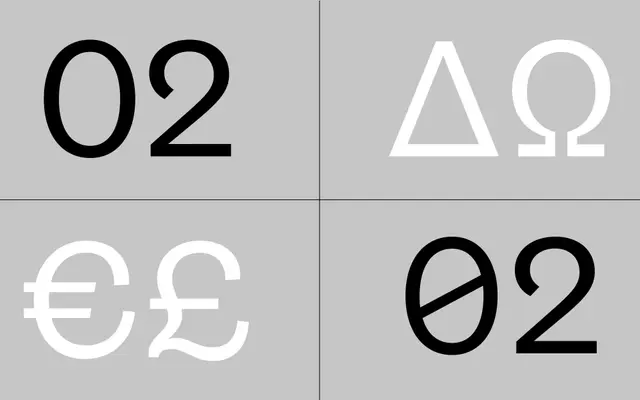
Oceanic Gothic specimen from Interval Type
A grotesque sans companion to the Oceanic serif families, drawing on late 19th and early 20th-century sans-serif models across six weights with matching italics and variable font support.
Designed as a counterpart to the Oceanic and Oceanic Text serif families, it borrows individual letter characteristics from Oceanic Display to maintain a shared typographic personality. Six weights run from Light to Poster, each with an italic, and the full family is also available as a variable font. Script coverage spans Extended Latin and Cyrillic, making it suited to a broad range of editorial and display work.
Inspired by early sans-serifs of the late 19th and early 20th centuries, Oceanic Gothic sits firmly in the grotesque tradition with its display-oriented character and period-influenced letterforms.